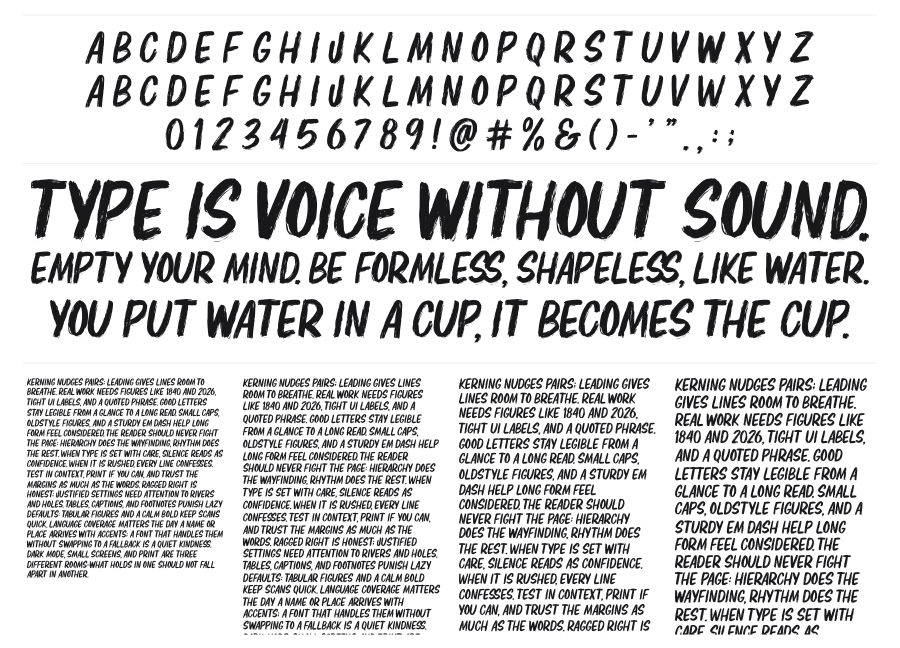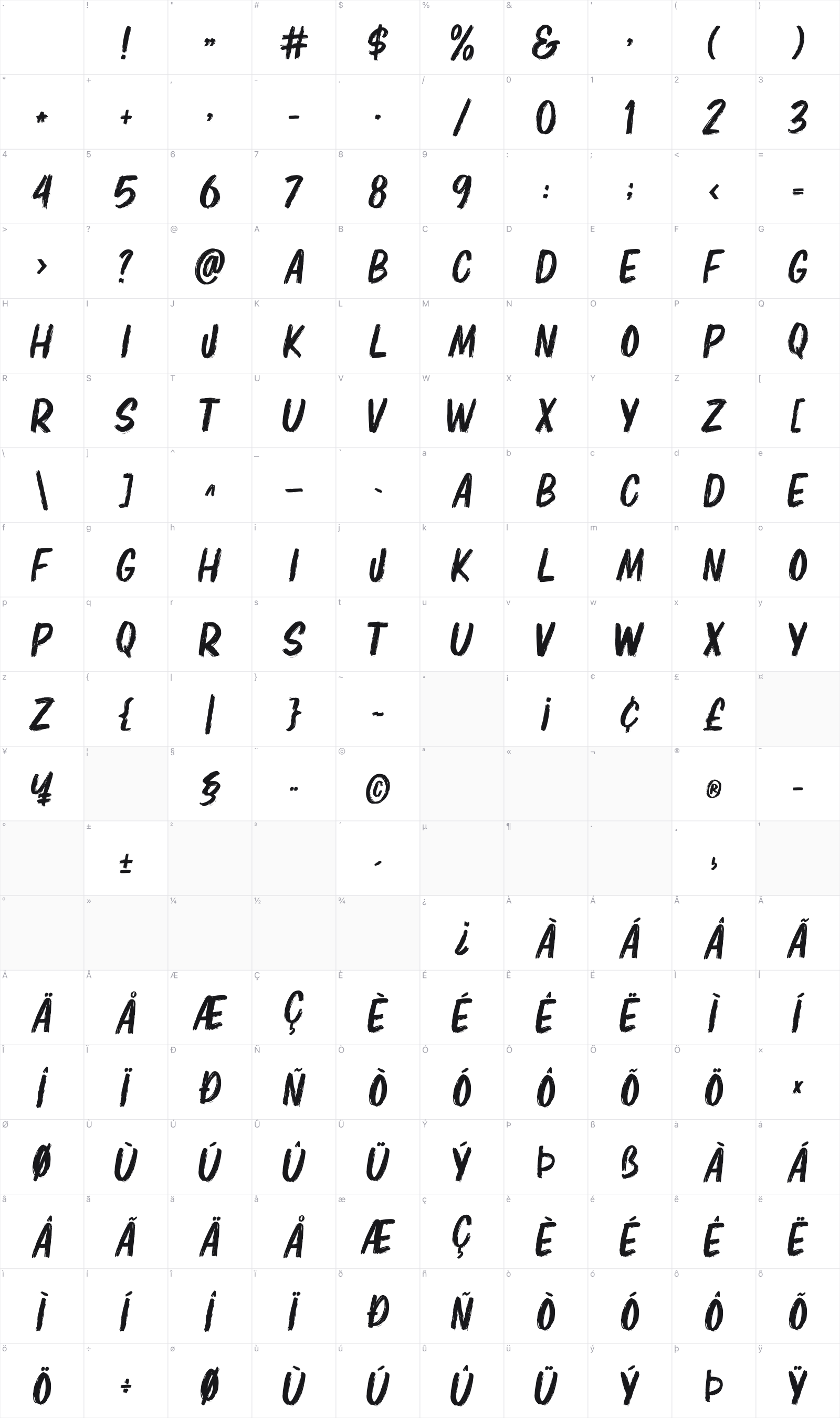
Elbrush
Elbrush is a bold italic brush script from Garisman Studio with heavy, ink-textured strokes and an unmistakable hand-painted energy. Bristle marks and stroke variation give it authentic rawness without sacrificing legibility at headline sizes. It carries the look of street-level hand lettering and works across anything that needs attitude: merchandise, posters, packaging, and branding.